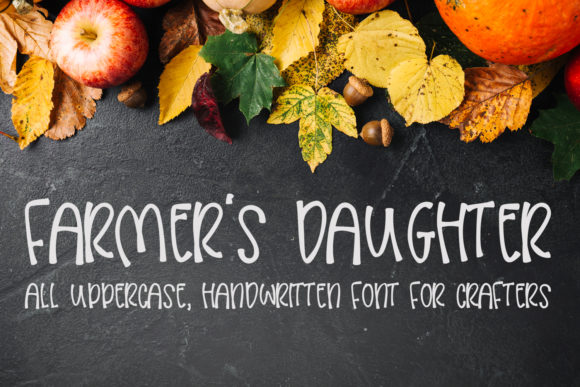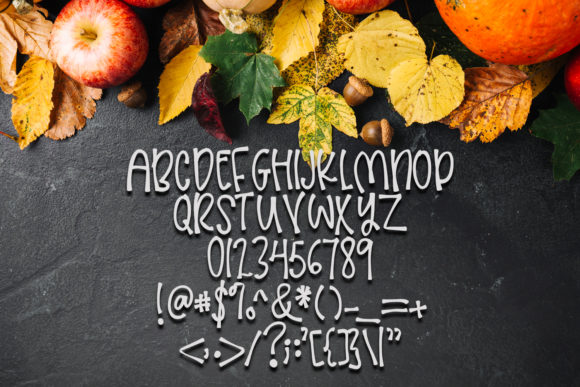
Farmers Daughter Font
About Farmers Daughter Font
The Farmers Daughter is a handwritten script created by Scout and Rose Design Co. It’s perfect for crafting projects!